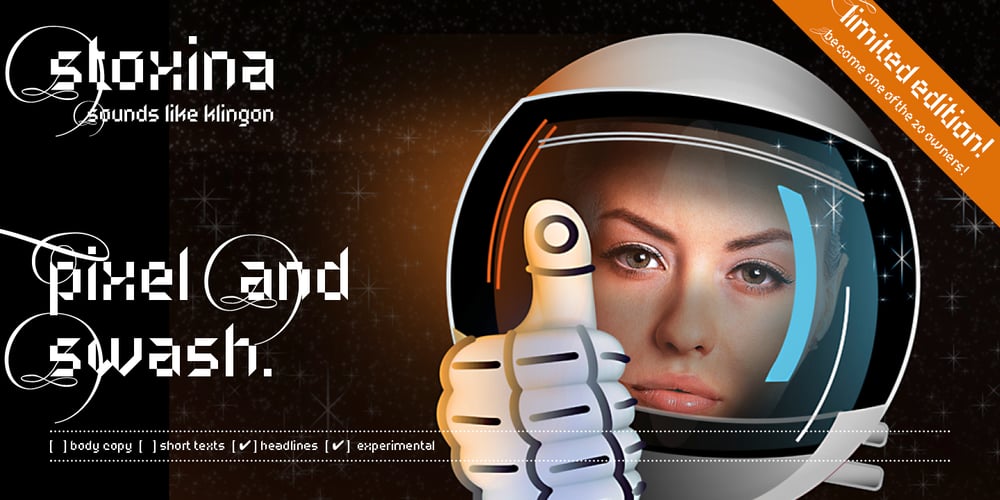
Stoxina Font Family was designed by Filippo Salmina and published by FSdesign-Salmina. Stoxina contains 1 styles and family package options. Stoxina. Pixel and Swashes. The screeching contrast between the historically extraneous ages of Baroque and the computer era characterises this new member oft the Atoxina family, “Atoxina family” with experimental character. Hazard the style-split, with Stoxina.